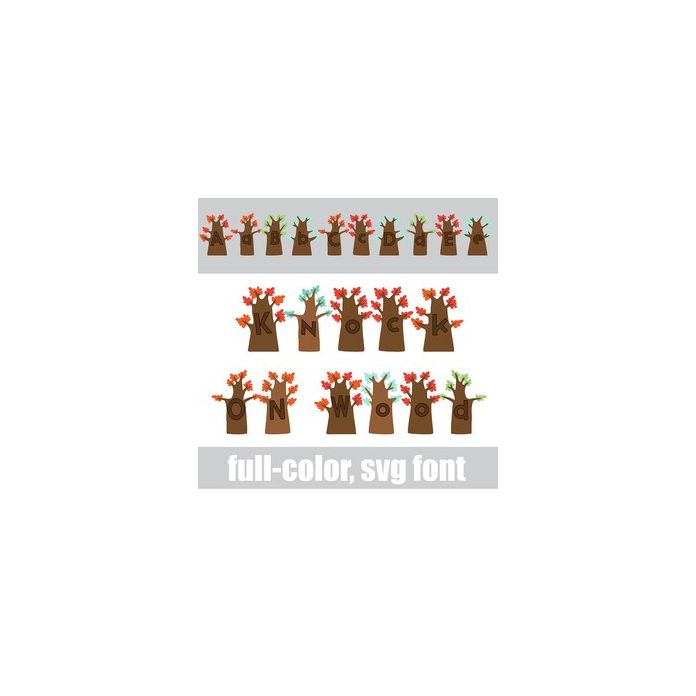
This full-color font features autumn trees with leaves. There is an alt case w/ additional colors you can access through your system or Silhouette's glyph map.